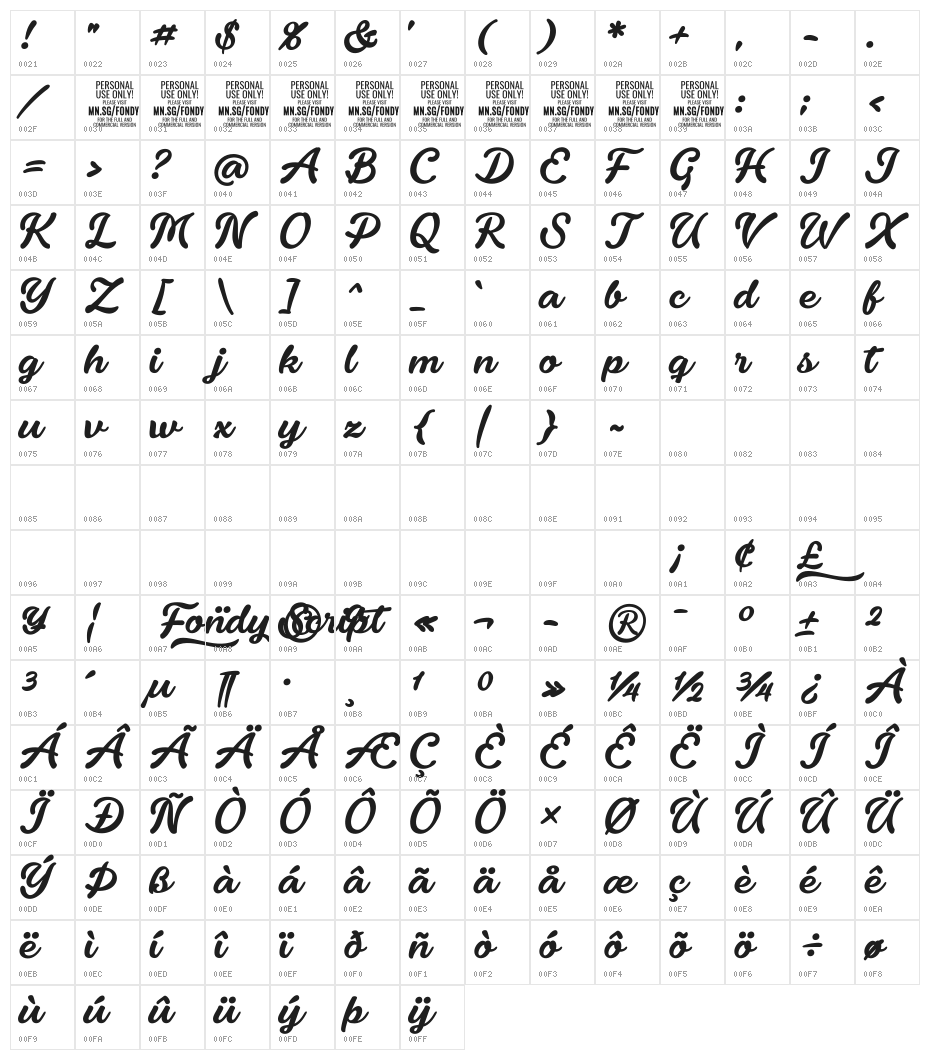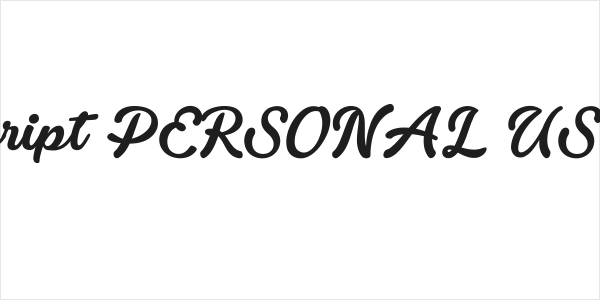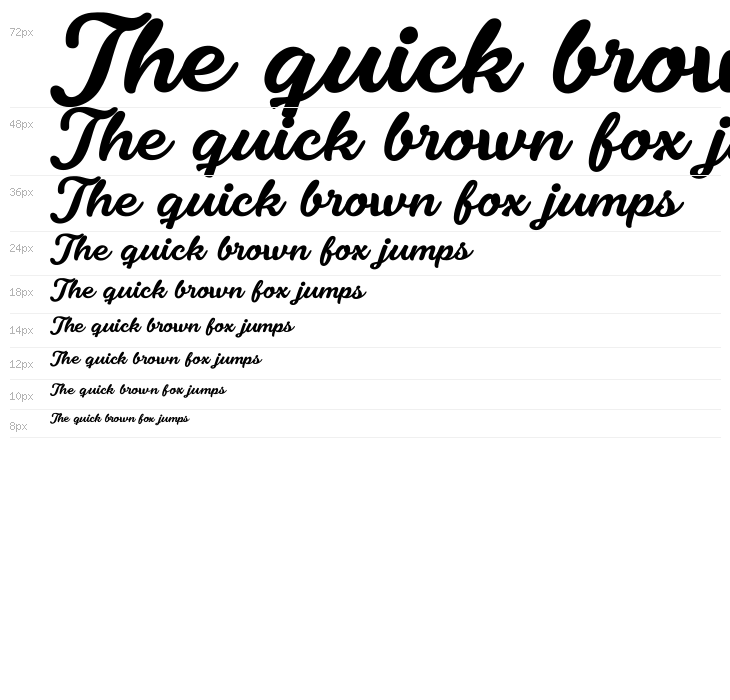
Fondy Script PERSONAL USE ONLY Font
Fondy Script PERSONAL USE ONLY Description
This font features a flowing, cursive style with smooth, connected strokes that give it a handwritten appearance. The letters are elegantly crafted with a consistent slant, creating a sense of movement and fluidity. The uppercase letters are bold and prominent, while the lowercase letters maintain a harmonious balance with slightly exaggerated loops and curves. The numerals and special characters are designed to match the overall script style, ensuring a cohesive look across all text. This font exudes a sense of elegance and sophistication, making it ideal for projects that require a personal touch.
| Overall Style | Elegant, Handwritten |
| Proposed Projects | Ideal for wedding invitations, greeting cards, personal branding, and elegant packaging designs. |